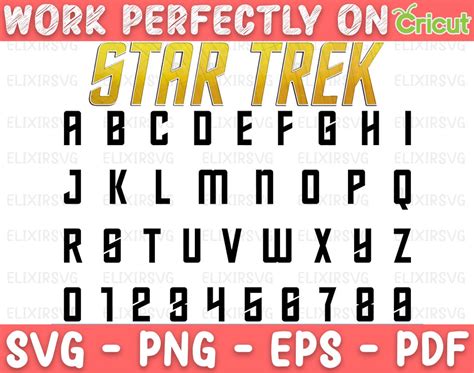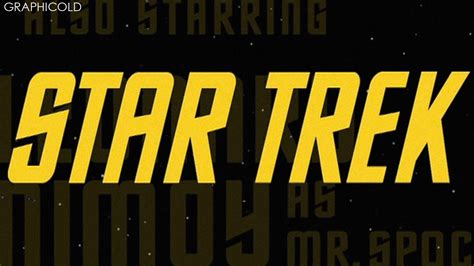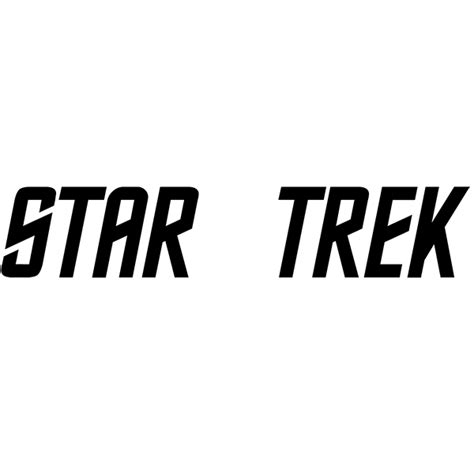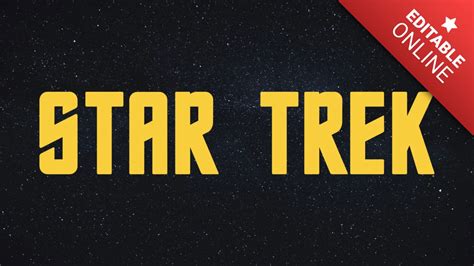
STAR TREK FONT
The Star Trek franchise has captivated audiences for decades with its imaginative world-building, complex characters, and enduring themes. A significant part of this experience is the visual language that brings the show to life, including its distinctive typography. The Star Trek font is an integral component of the show's iconic style, contributing to its timeless appeal and cultural impact.
The font used in the original Star Trek series, known as "Star Trek Font," is a custom-designed typeface that became synonymous with the show's futuristic and spacefaring aesthetic. This font was not just a choice of style but also a strategic decision to enhance the narrative and create a cohesive visual identity. The unique letterforms, with their sleek and modern design, reflected the advanced technology and otherworldly settings of the Star Trek universe.
Beyond its aesthetic appeal, the Star Trek font has historical significance and cultural impact. It has been a subject of fascination for fans and designers alike, inspiring numerous font creations and adaptations. The font's influence extends beyond the show, as it has been used in various Star Trek merchandise, fan-made projects, and even in other media, solidifying its place in popular culture.
This introduction aims to explore the Star Trek font's design, its role in the show's visual identity, and its enduring legacy. By understanding the font's significance, we can appreciate how it contributes to the immersive experience of the Star Trek universe and why it continues to resonate with fans and designers worldwide.